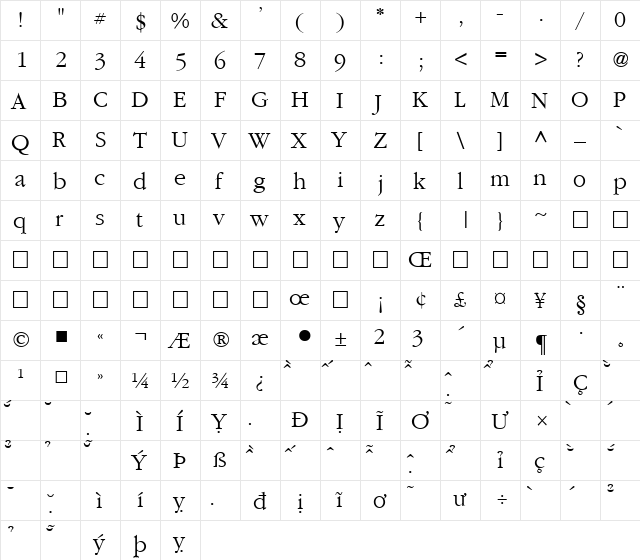
VNI-Garam Normal Font Preview
VNI-Garam Normal
Design Context for VNI-Garam Typeface
VNI-Garam is a composed and adaptable typeface that performs quietly and consistently across a wide range of design contexts.